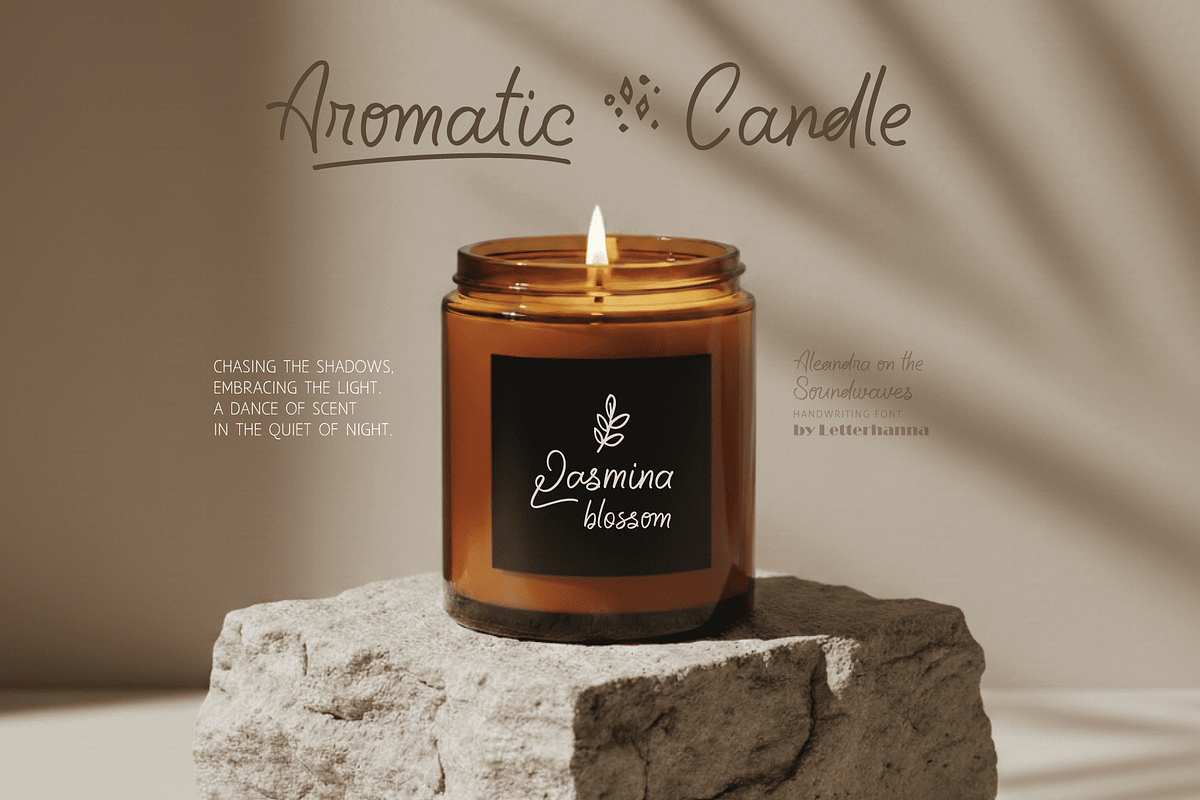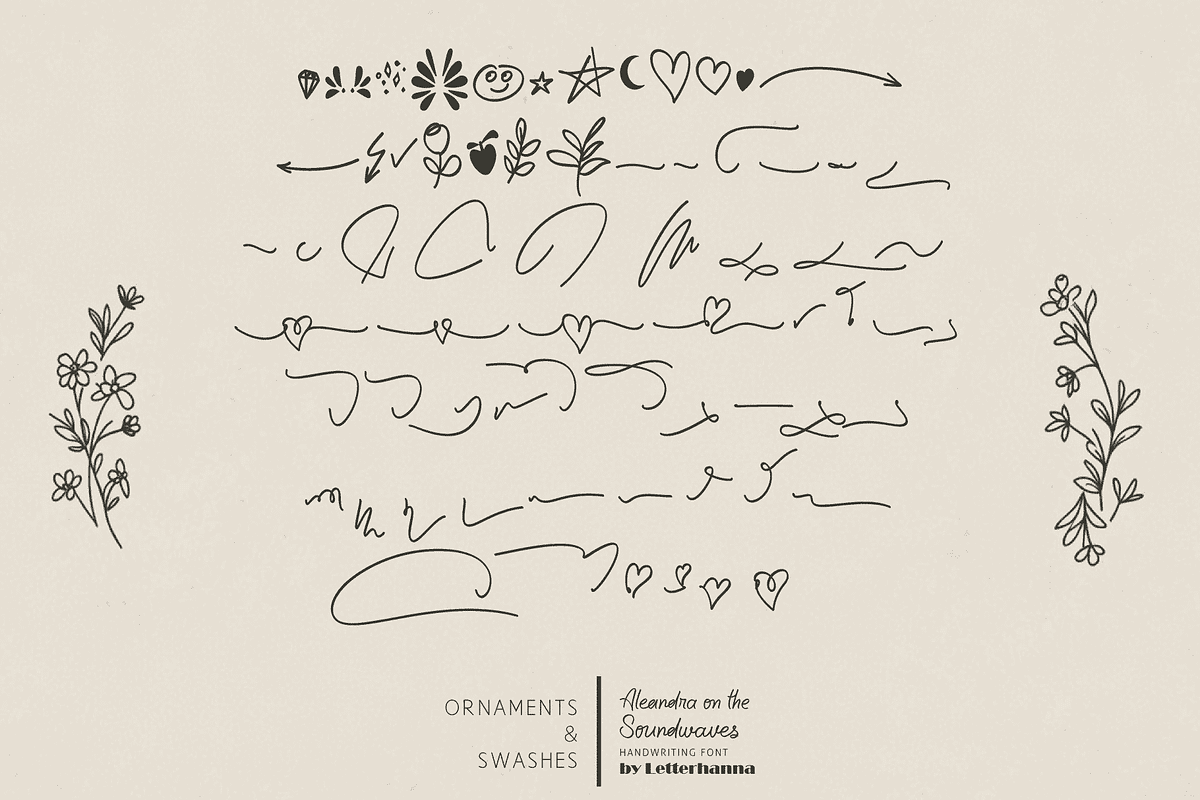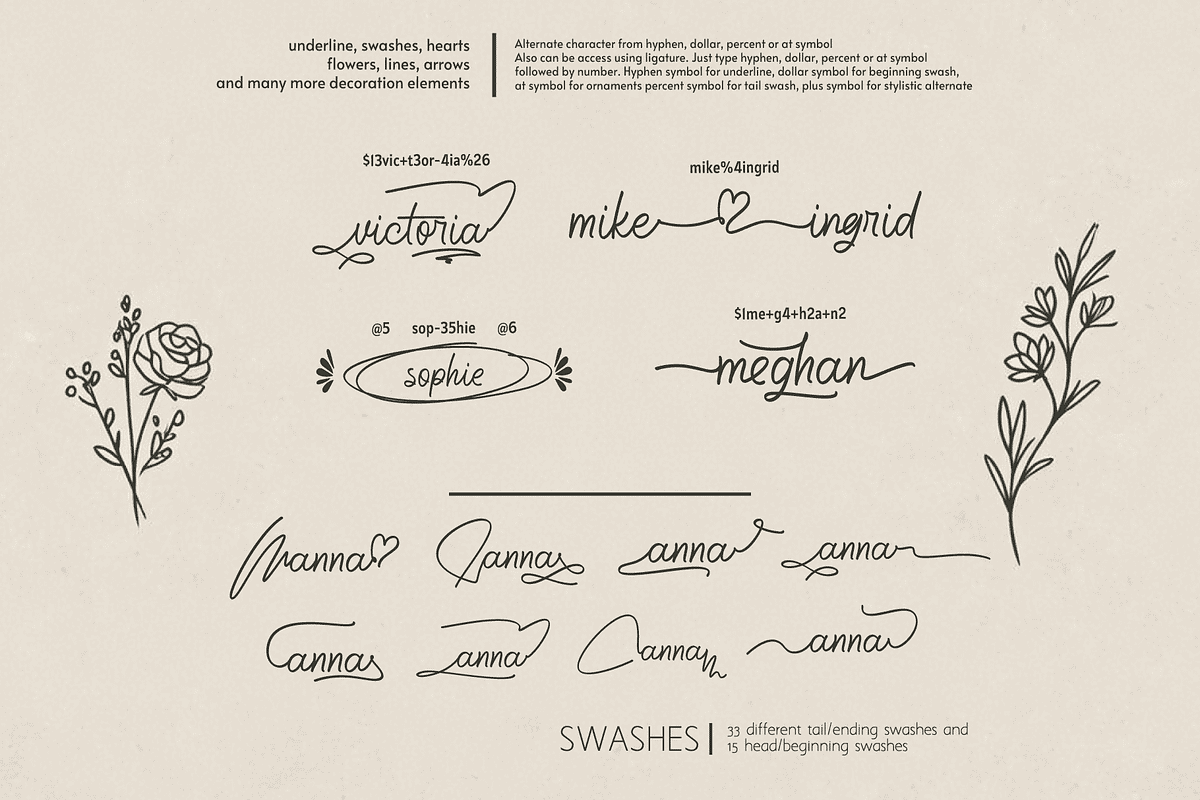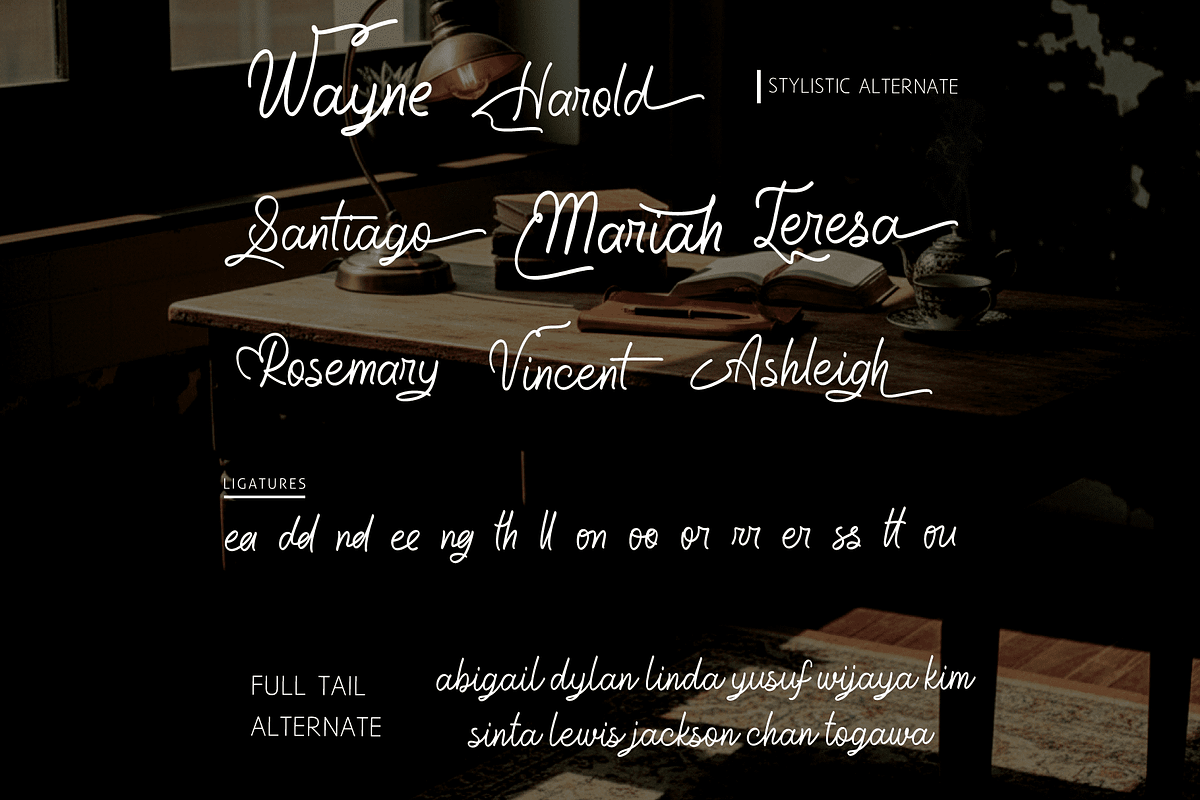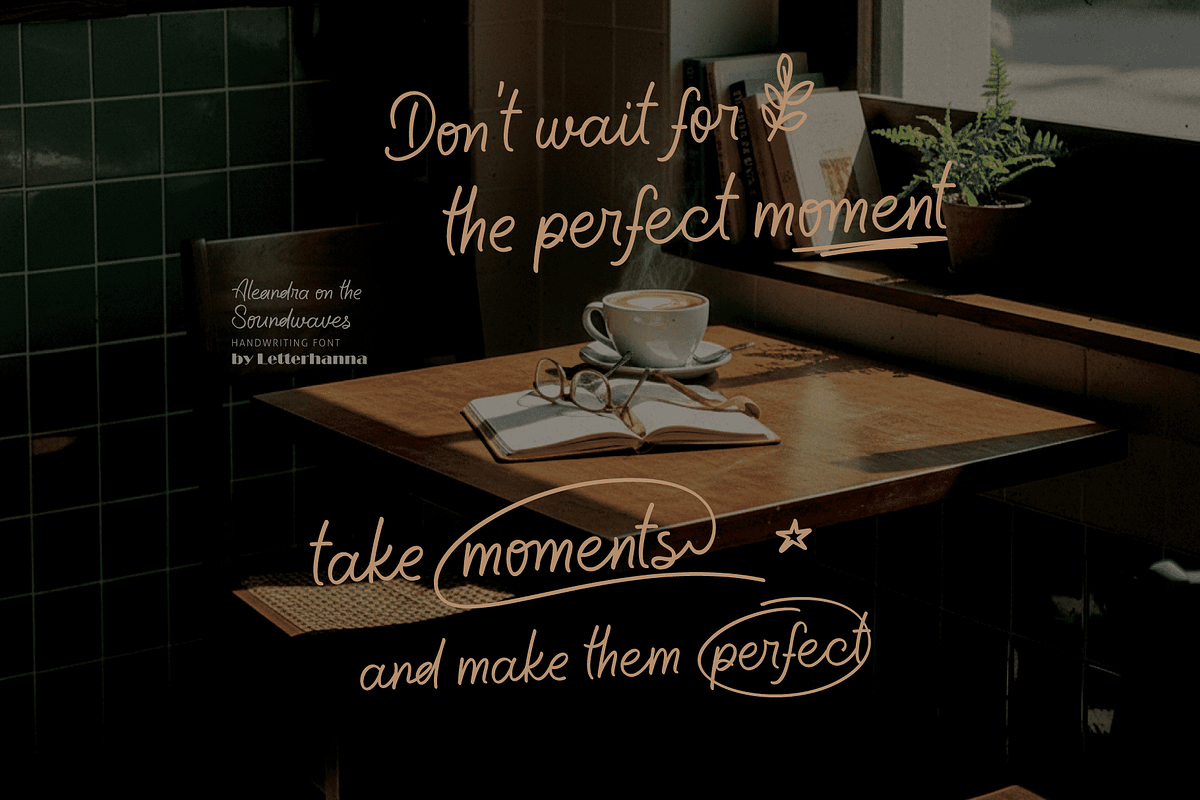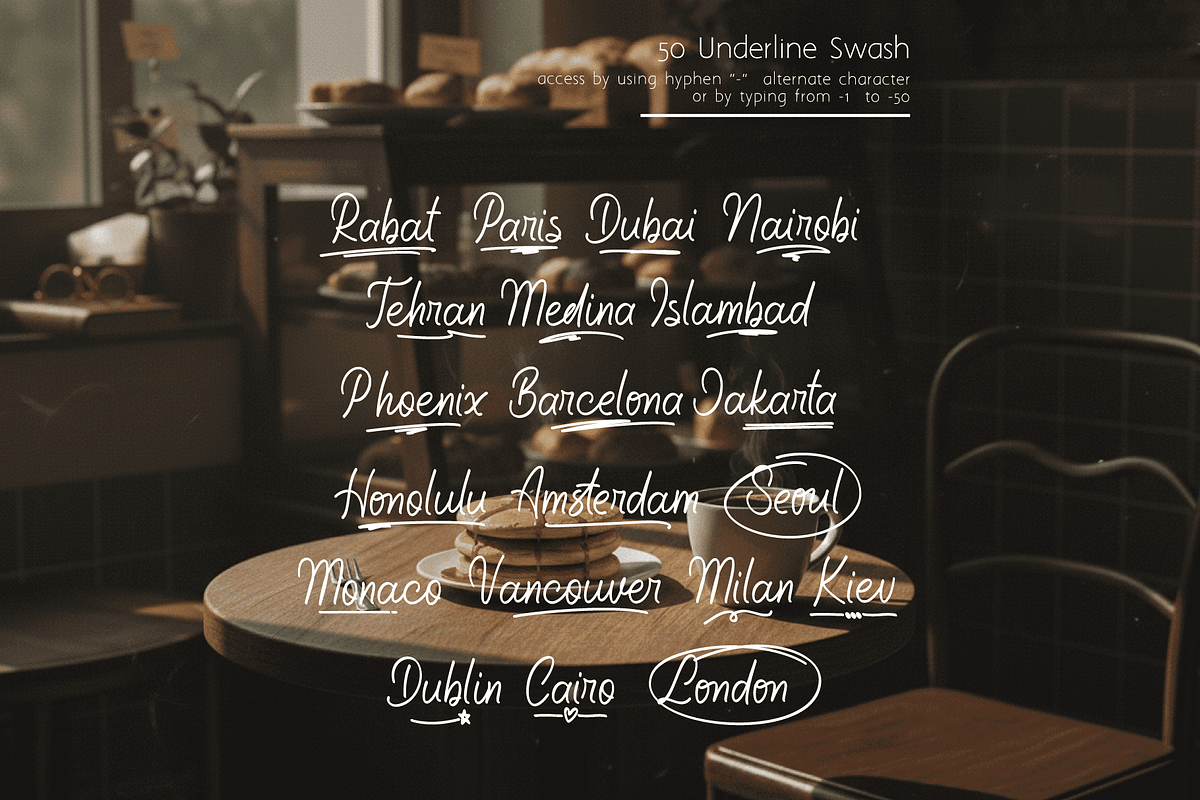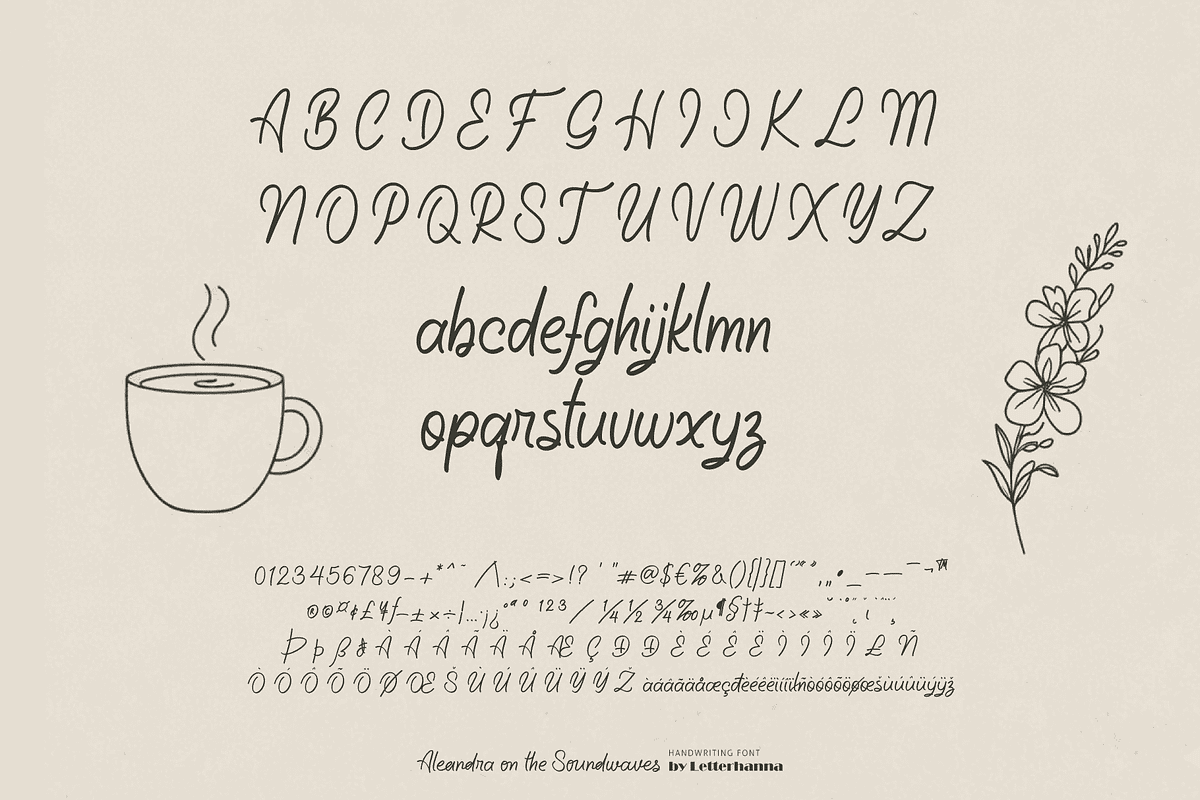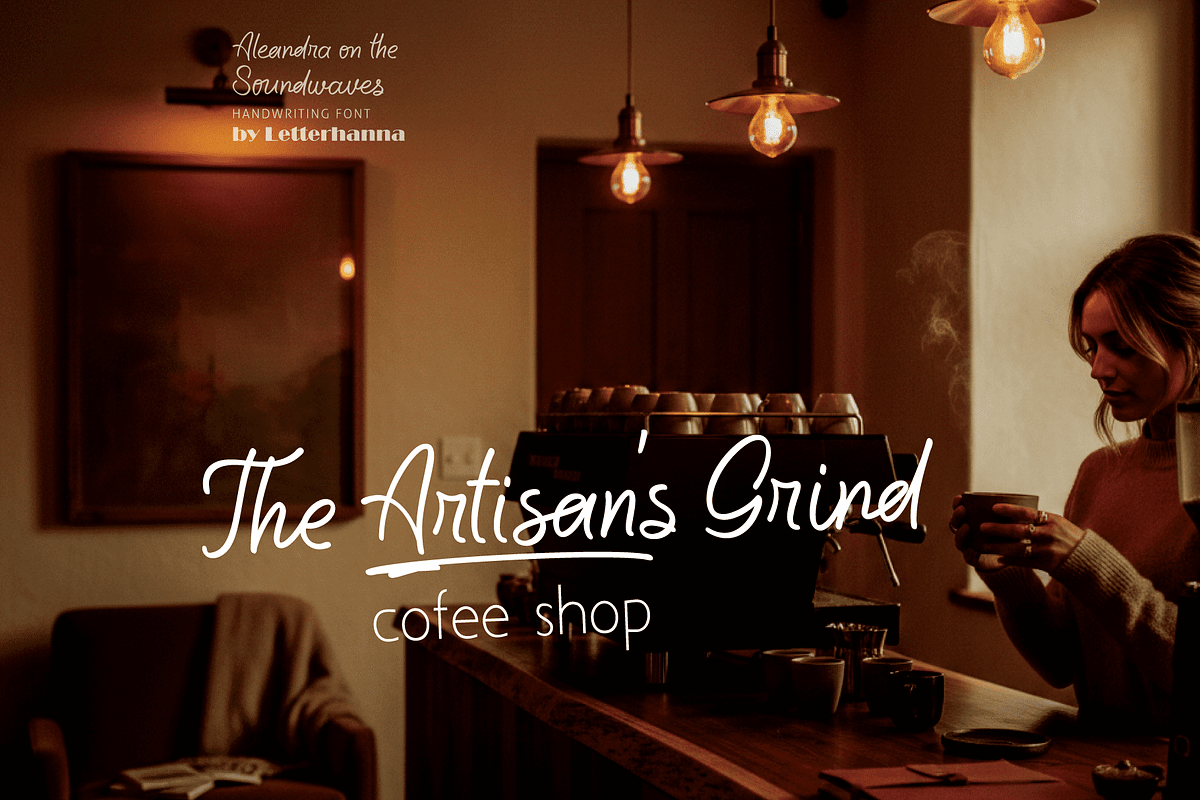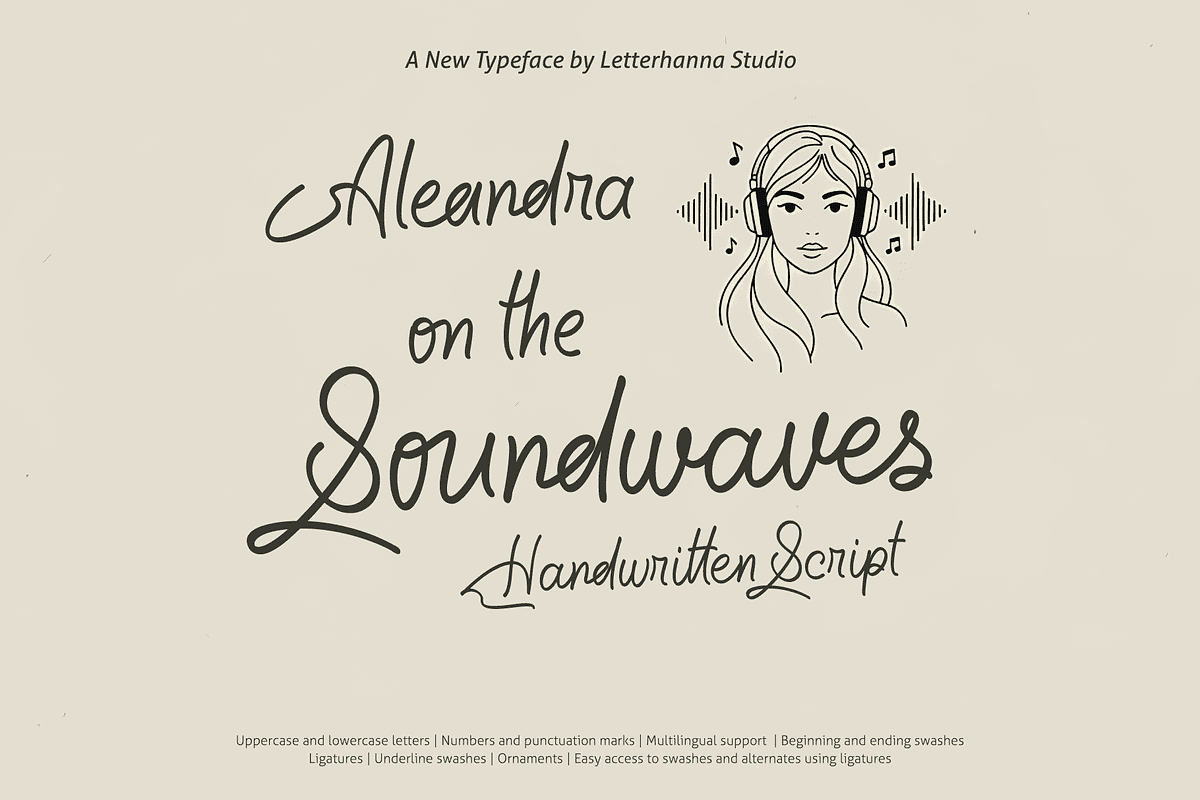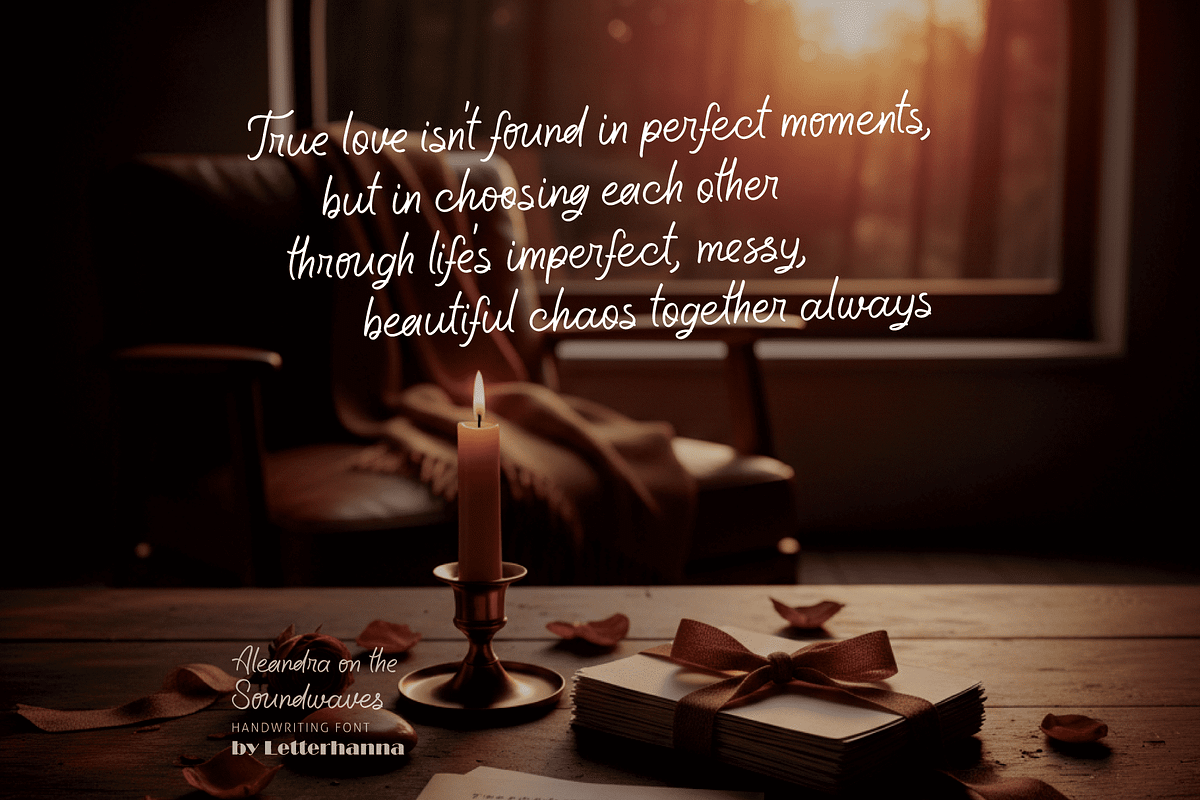
Aleandra on the Soundwaves Font
Ever felt your text lacked soul? Aleandra on the Soundwaves tells the story of an illustrator mesmerized by soundwave patterns during late-night sessions, who then crafted a handwriting font to bridge audio and visual worlds. Overflowing with artistic swash extensions, flexible stylistic alternates for customization, and striking underline swash accents, it turns ordinary lettering into dynamic compositions. Excellent for band branding, event posters, packaging, or content creation. Do not miss this opportunity—bring harmonic energy to your work today.
Easy Access to Glyphs and Swashes Gain easy access to all alternate glyphs, swashes, ornaments, and underlines by simply using ligatures. You can try them out yourself in the font preview tool on our website, letterhanna com
Accessing Swashes and Ornaments Underline Swashes: Use a hyphen symbol "-" followed by a number between 1 and 50. For example, type "-3", "-22", or "-17" to get various underline swashes. Head/Beginning Swashes: Use a dollar sign followed by a number between 1 and 15. Tail/Ending Swashes: Use a percent sign "%" followed by a number between 1 and 33. For example, type "%3" or "%15" to get various tail/ending swashes. Ornaments: Use an "at" symbol followed by a number between 1 and 21. For example
PUA Encoding for Ease of Use, which means you can access all the glyphs and swashes with ease!
Font Features Uppercase and lowercase letters Numbers and punctuation marks Multilingual support Ligatures Beginning and ending swashes Underline swashes Ornaments Easy access to swashes using ligatures